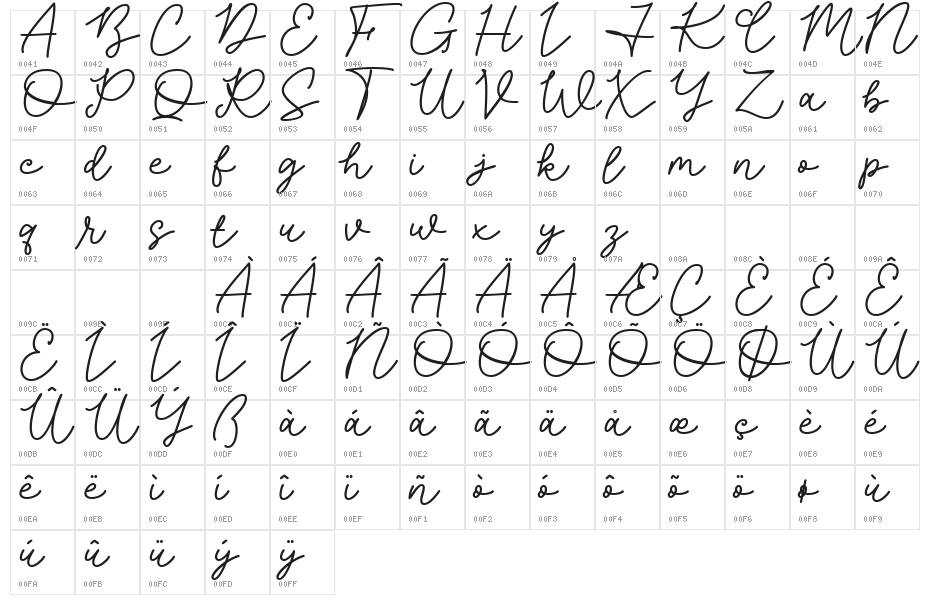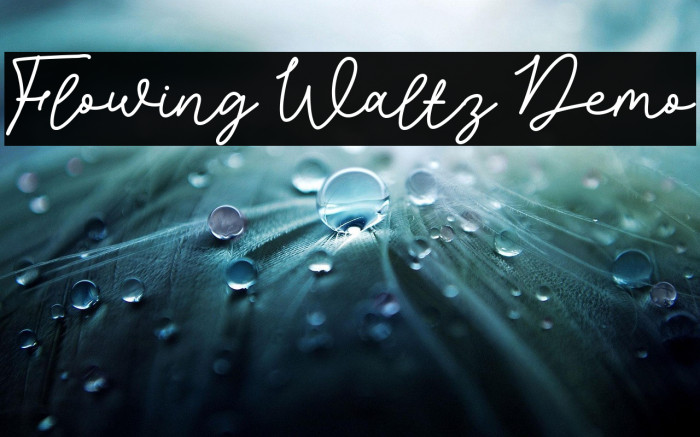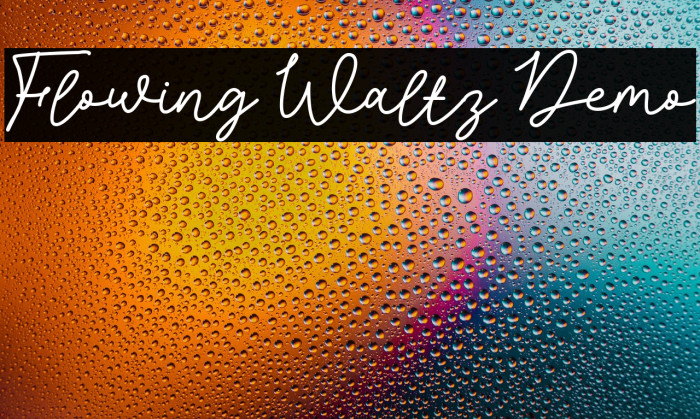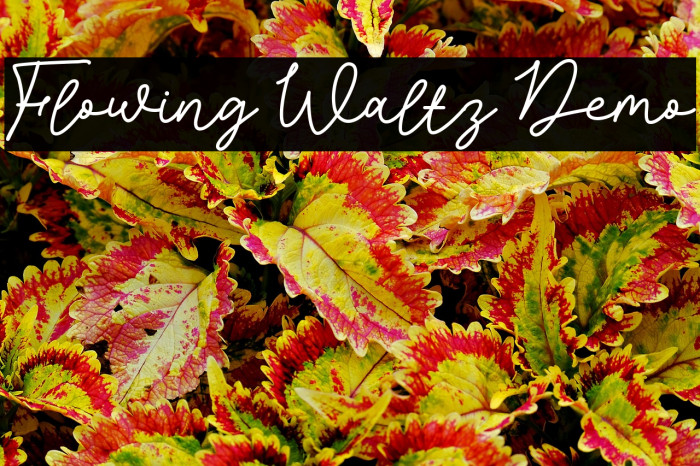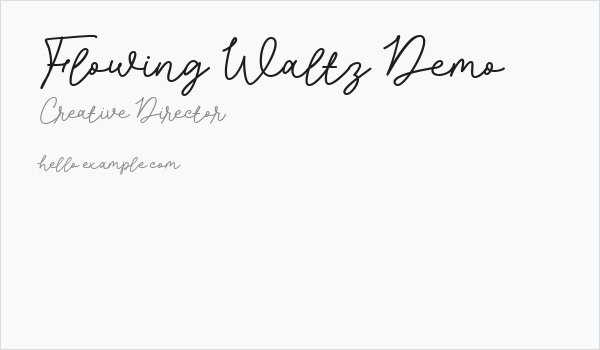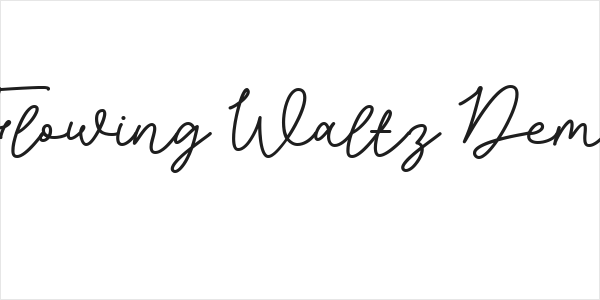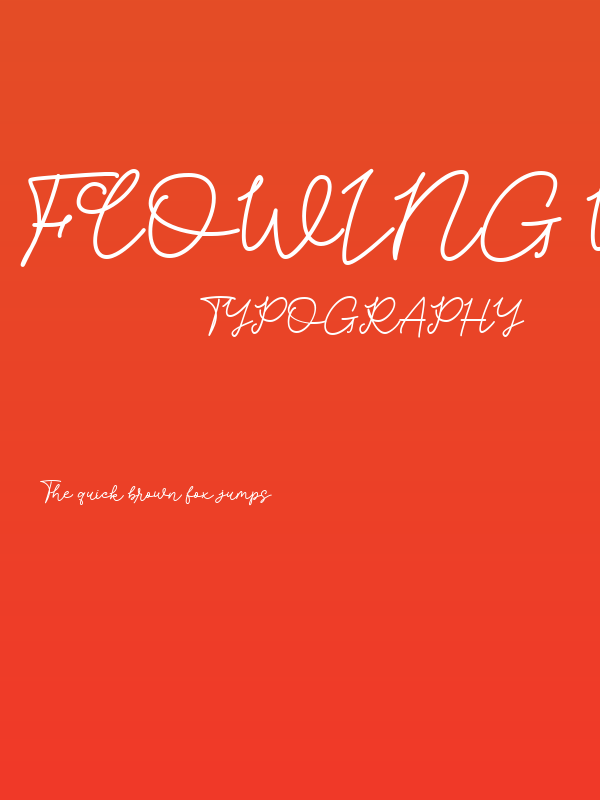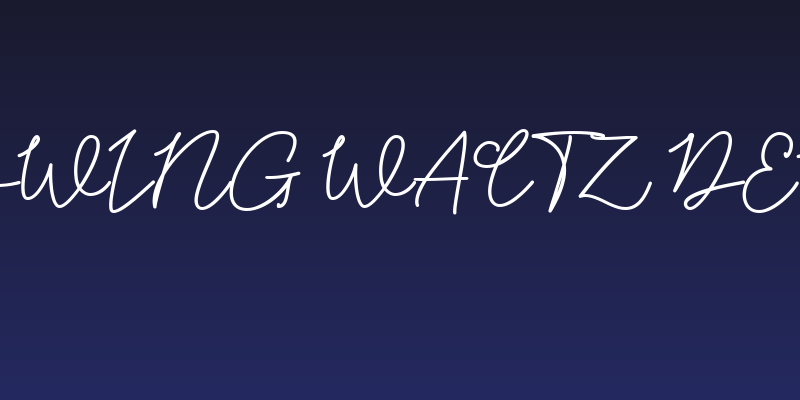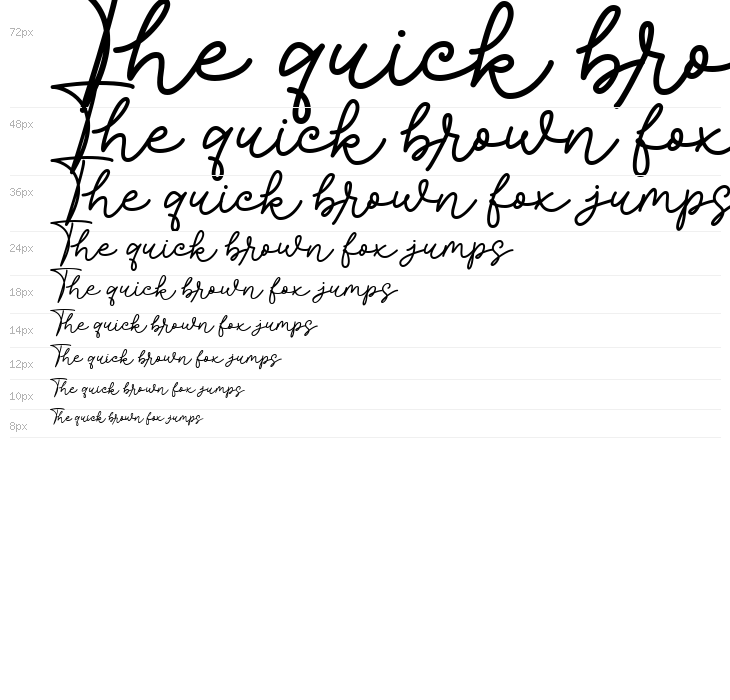
Flowing Waltz Demo Font
Flowing Waltz Demo Description
A flowing, elegant script font with a handwritten style, featuring smooth, connected letters and a graceful appearance.
| Overall Style | Elegant, Handwritten |
| Proposed Projects | Wedding invitations, greeting cards, personal branding. |